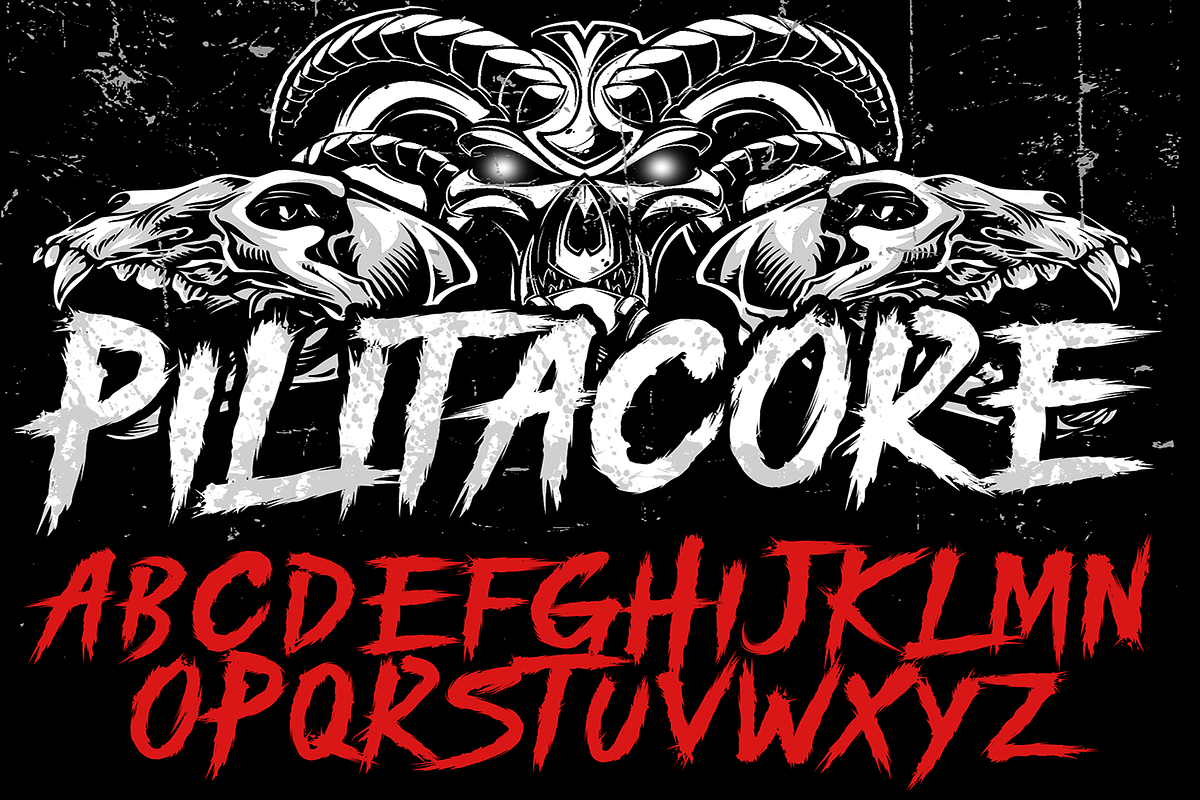
PILITACORE
Introducing
PILITACORE
- Metal core inspired font with special edgy brush stroke ends to make brutal perfect effect.
- Dark solid brush theme font for horror projects, halloween design, spooky events, etc.
- Available in Uppercase, Numbers, Punctuations and Symbols.